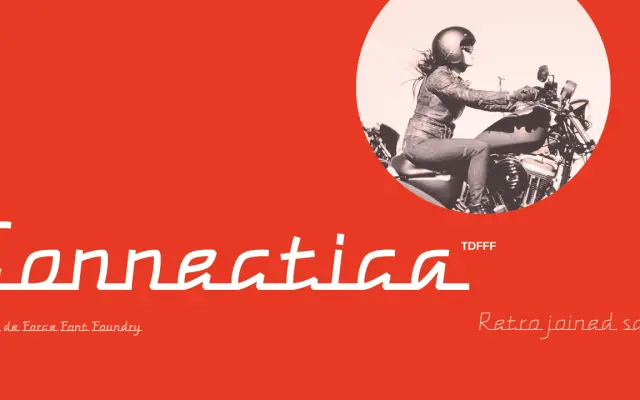
Connectica
Tour de Force · Dušan Jelesijević · 2019
A joined monolinear script in two weights with OpenType initial forms for capital letters that lack a left-side joining stroke.
Designed by Dušan Jelesijević and released in June 2019, Connectica is a monoline connected script built around continuous joining strokes between characters. Capital letters such as E, F, U, V, W and Y use a swash initial form via OpenType to handle the absence of a left-side entry stroke cleanly. The family covers 102 languages across Extended Latin and includes standard ligatures alongside the initial forms feature.
A monolinear joined script, meaning all letterforms connect in a continuous flow. The foundry classifies it as Script, and its monoline construction distinguishes it from calligraphic or brush scripts.